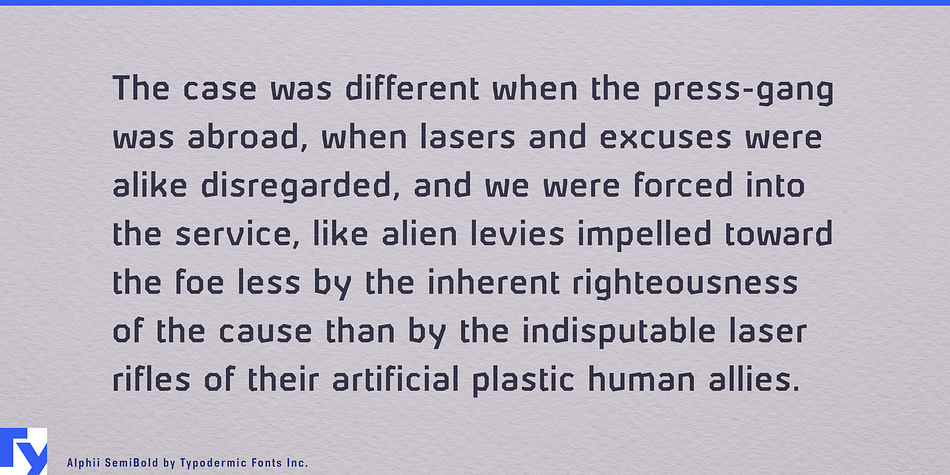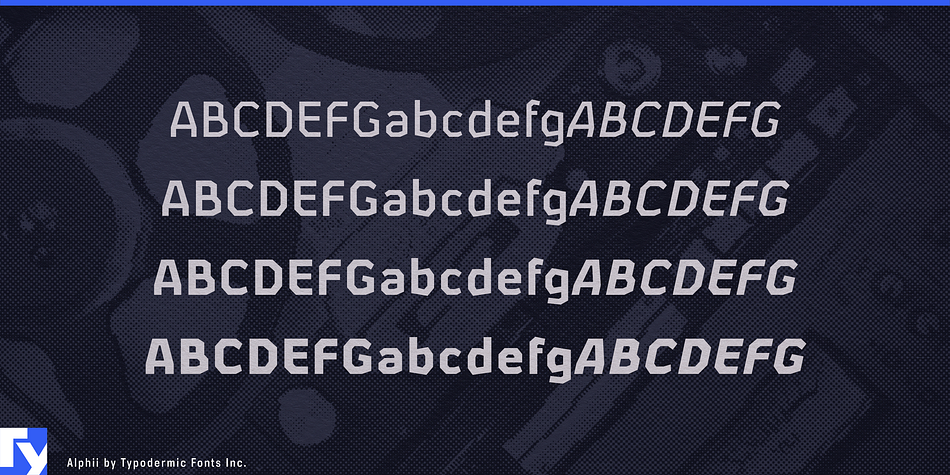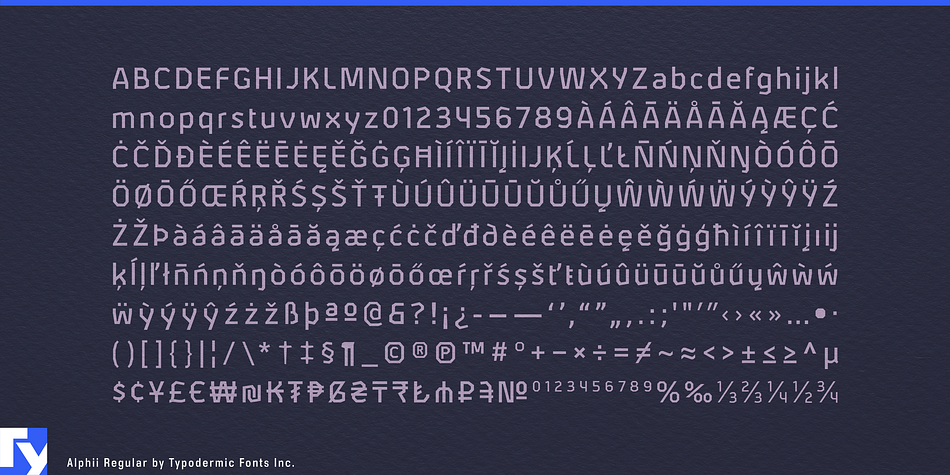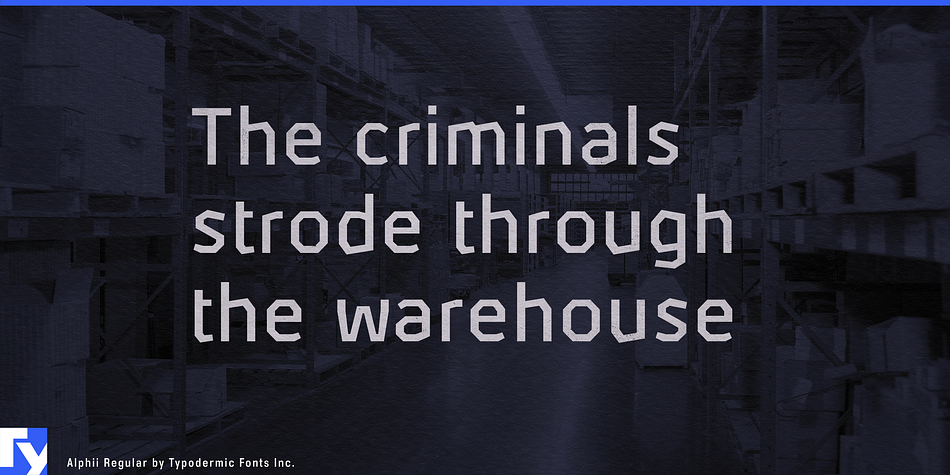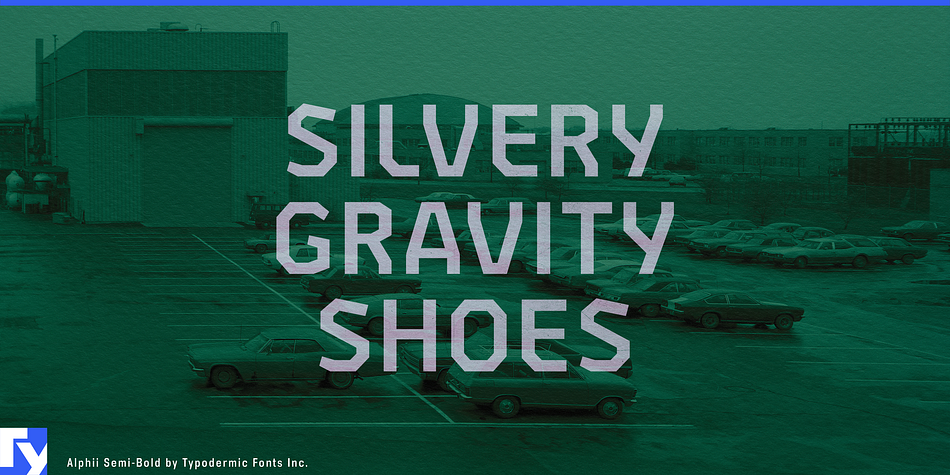
Alphii is a display sans font family. This typeface has four styles and was published by Typodermic Fonts Inc.
Alphii is an innovative, angular typeface in 4 weights. Despite its methodological straight lines, Alphii’s perspicuous, ascetic and easy to read nature makes it a superb choice for text as well as headlines and titles.